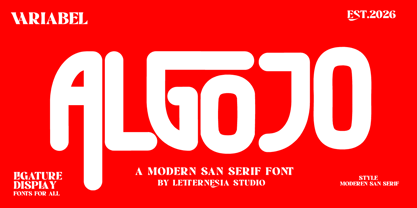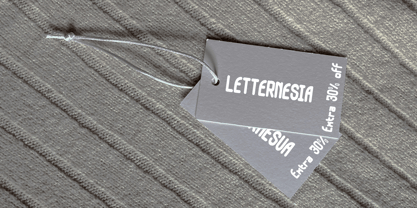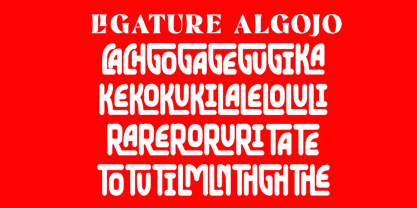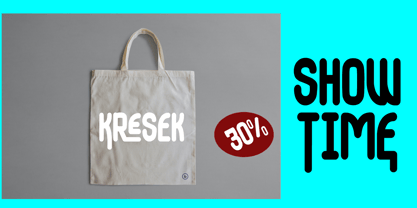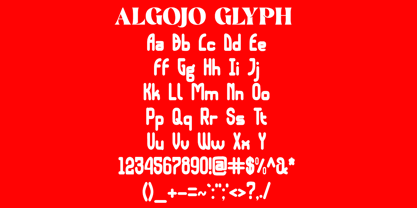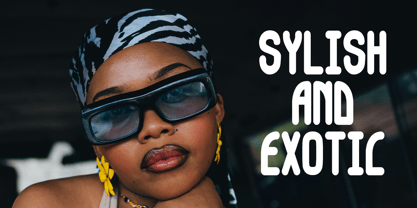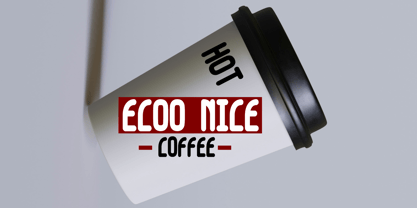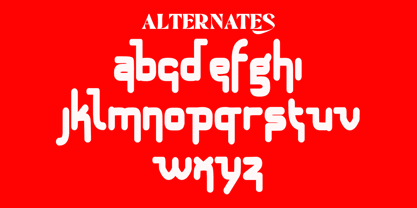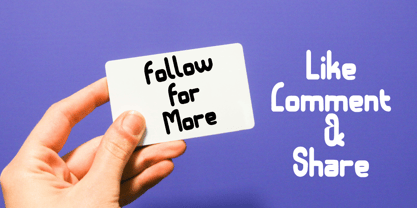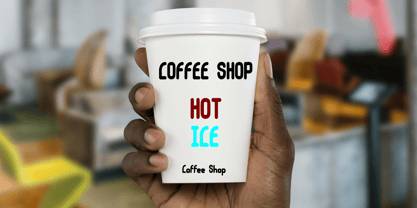
Algojo
von Letternesia studio
Die Schriftfamilie Algojo wurde von Ta Siyo entworfen und von Letternesia studio veröffentlicht. Algojo enthält 2 Stile und Familienpaketoptionen. Mehr über diese Familie
ALGOJO is a modern display sans serif font designed with a bold, confident, and clean aesthetic. Featuring strong letterforms with a minimalist touch, ALGOJO stands out effortlessly and captures attention in any visual composition.
This font is perfect for headlines, branding, logos, posters, product packaging, and social media content that demand a striking and professional look. Each character is carefully crafted with balanced proportions, delivering a futuristic yet versatile style suitable for various design needs.